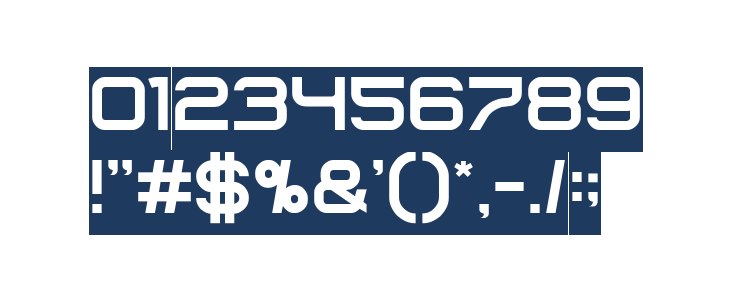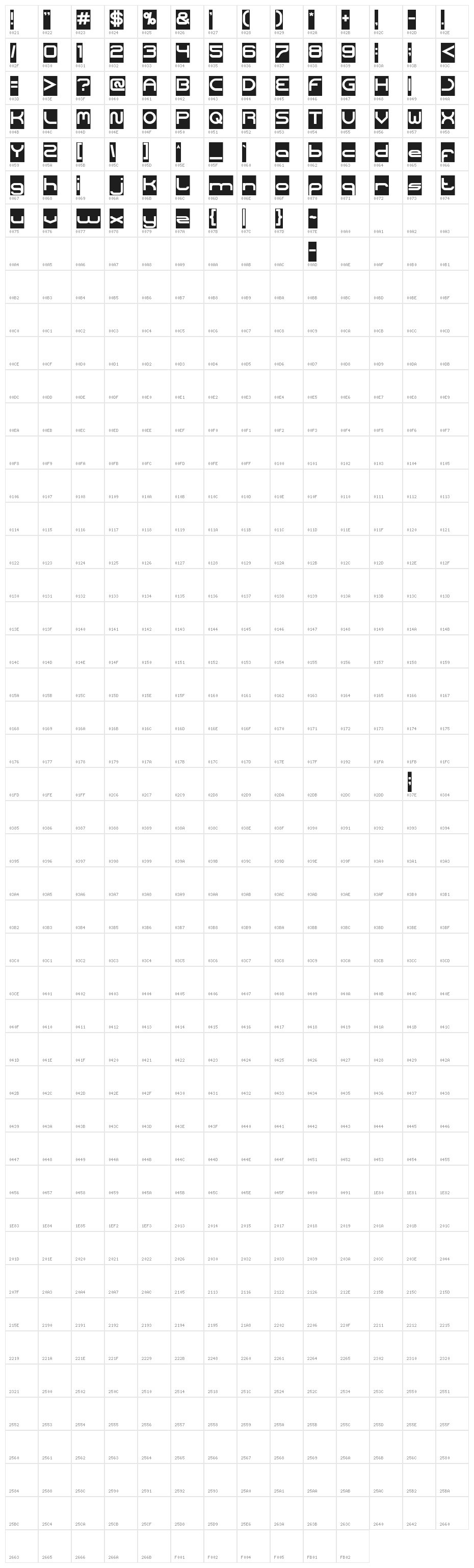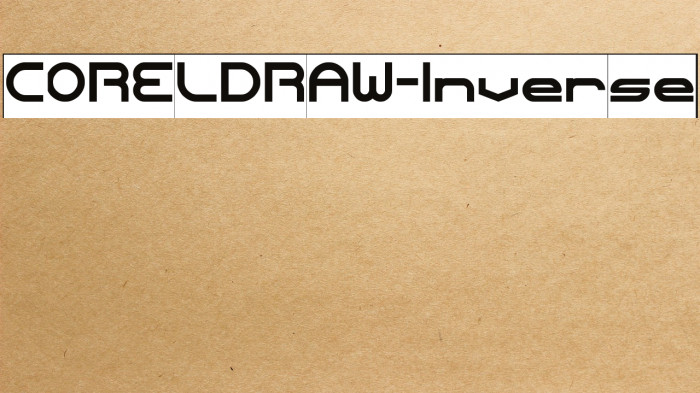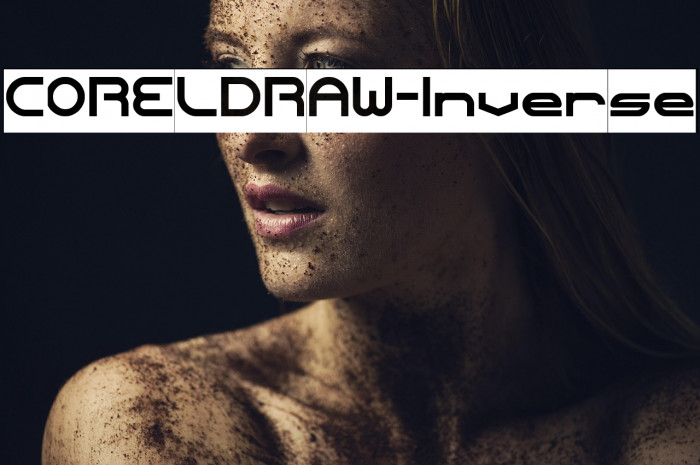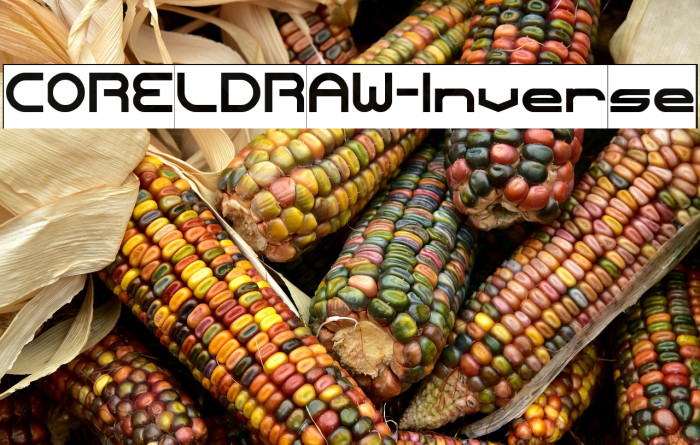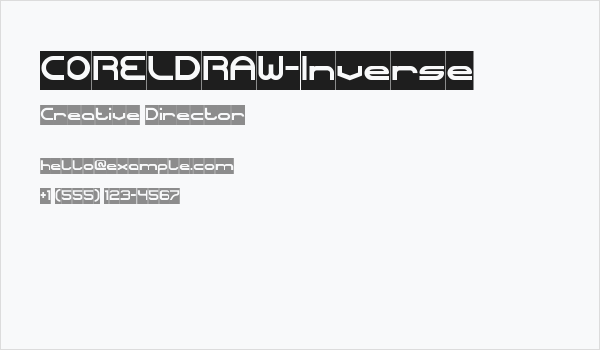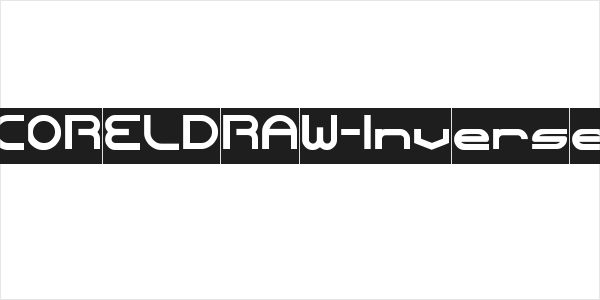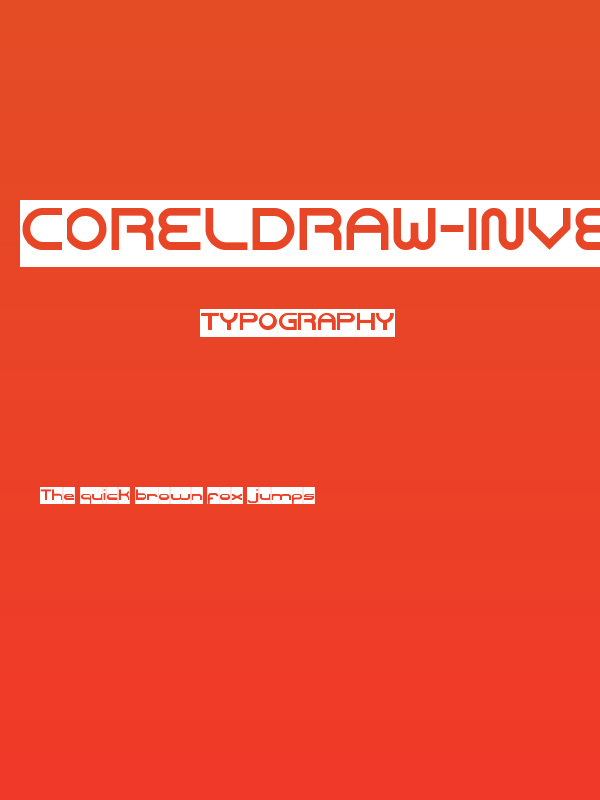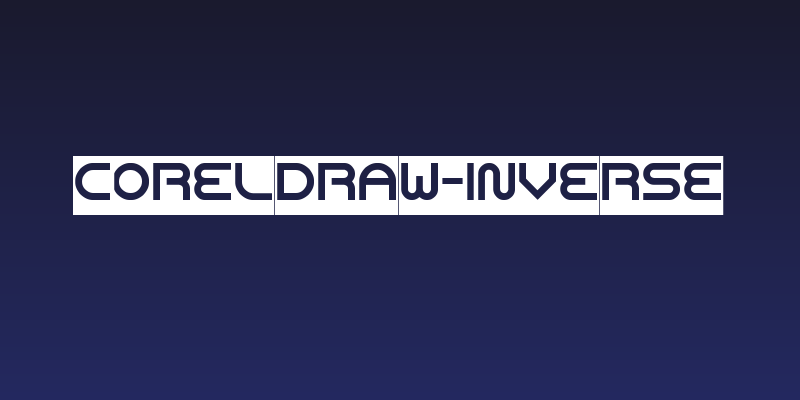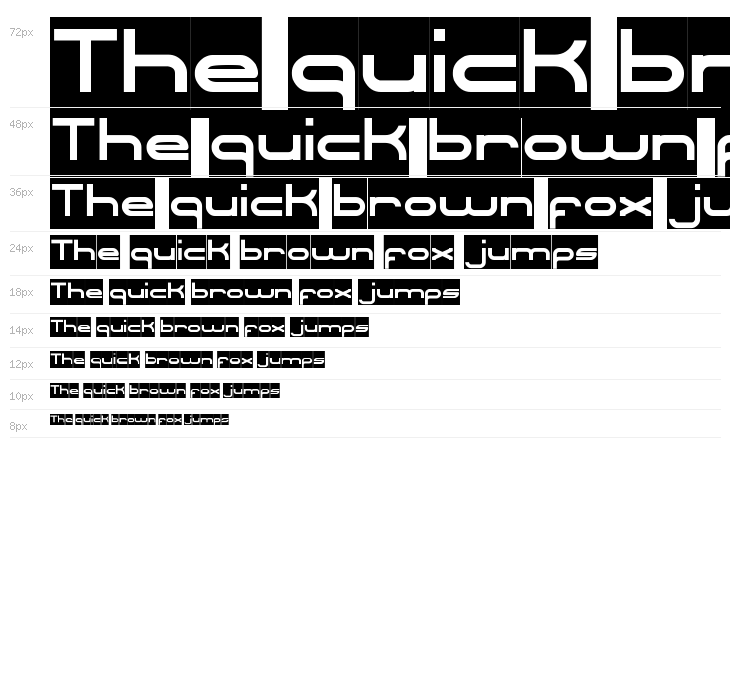
CORELDRAW-Inverse Font
CORELDRAW-Inverse Description
This font features a modern, geometric style with a futuristic flair. The characters are constructed with clean, bold lines and a consistent stroke width, giving it a uniform appearance. The uppercase letters have a distinct, angular design, while the lowercase letters maintain a similar geometric structure with rounded edges. The numerals are equally bold and geometric, ensuring readability and consistency across all characters. Special characters are designed to match the overall aesthetic, making this font suitable for a variety of creative applications.
Overall StyleFuturistic, Geometric
Use CaseHeadlines, Logos, Digital Interfaces
Proposed ProjectsIdeal for technology branding, sci-fi themed projects, modern logos, and digital interfaces.